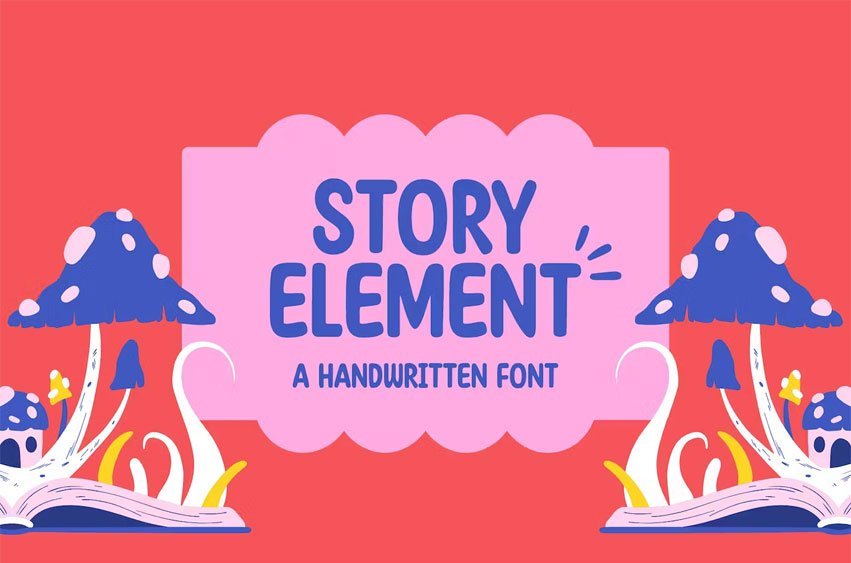
Story Element Font is a versatile and playful display font that is perfect for a variety of projects. Whether you are creating crafts, designing digital graphics, making presentations, or sending greeting cards, Story Element can add a touch of personality and fun to your work.
- All Uppercase
- Punctuation & Number
- Multilingual Support ÀÁÂÃÄÅÆÇÐĐÈÉÊËÌÍÎÏŁÑÒÓÔÕÖØŒŠÙÚÛÜŸÝŽàáâãäåæçđèéêëìíîïłñòóôõöøœšùúûüýÿž